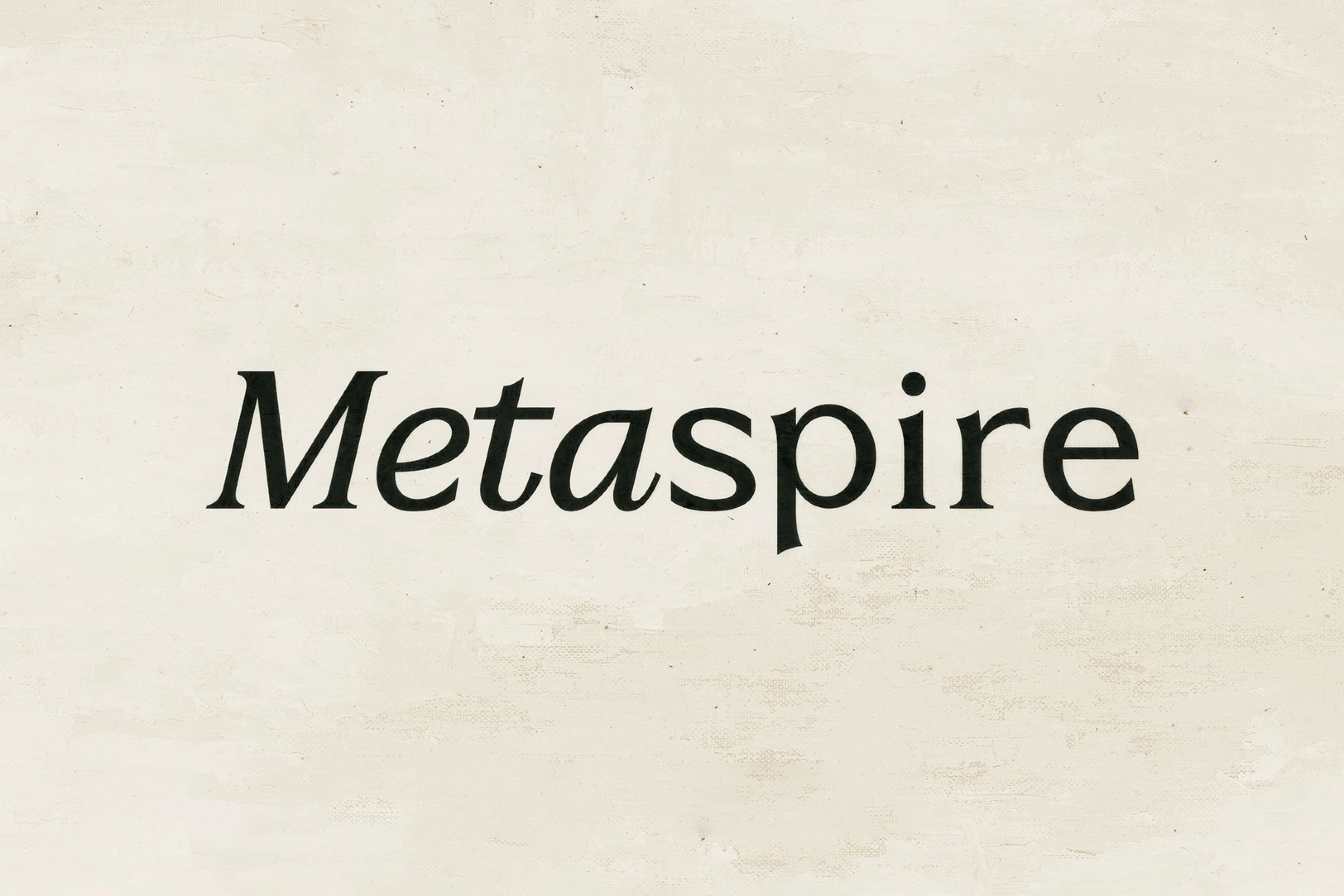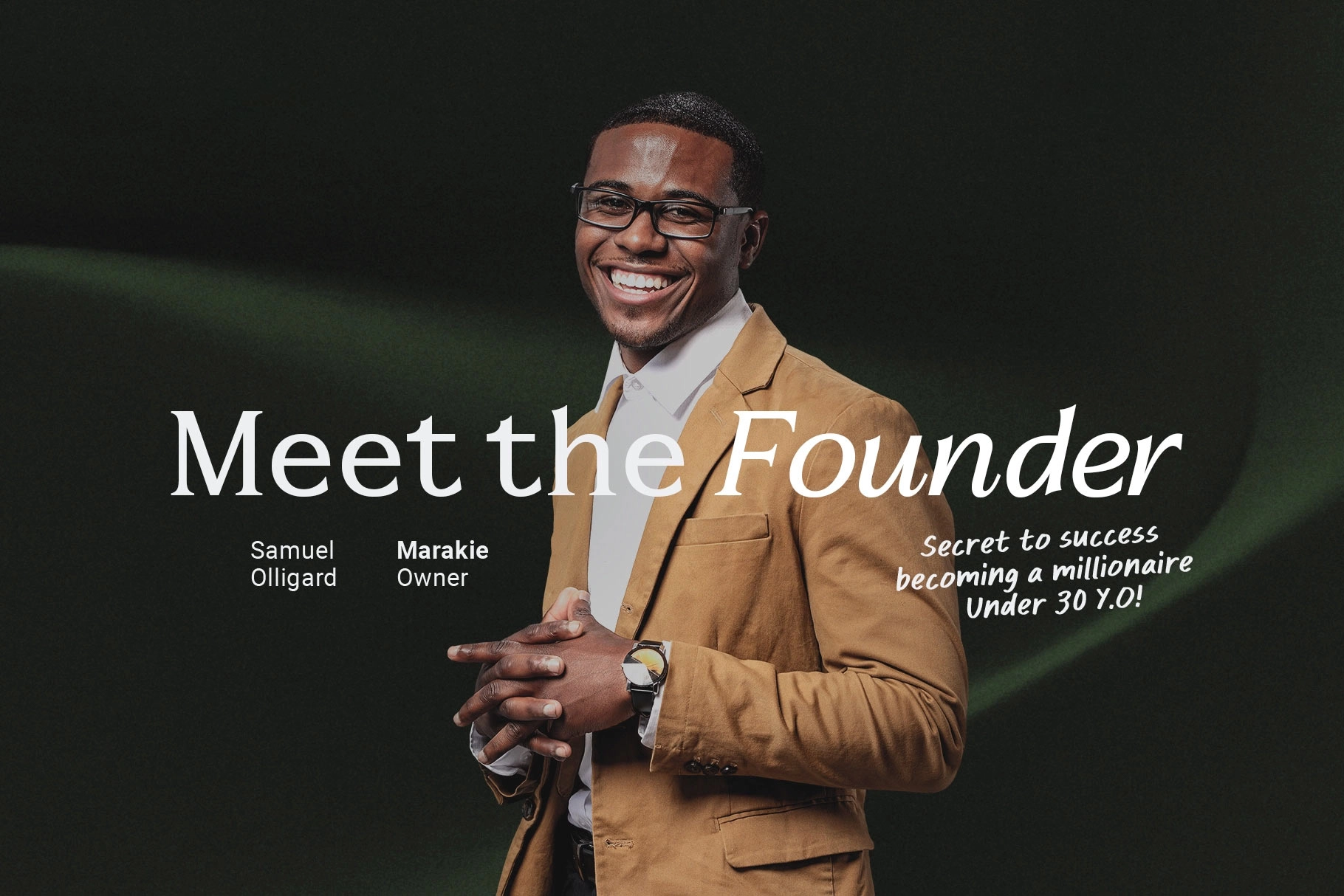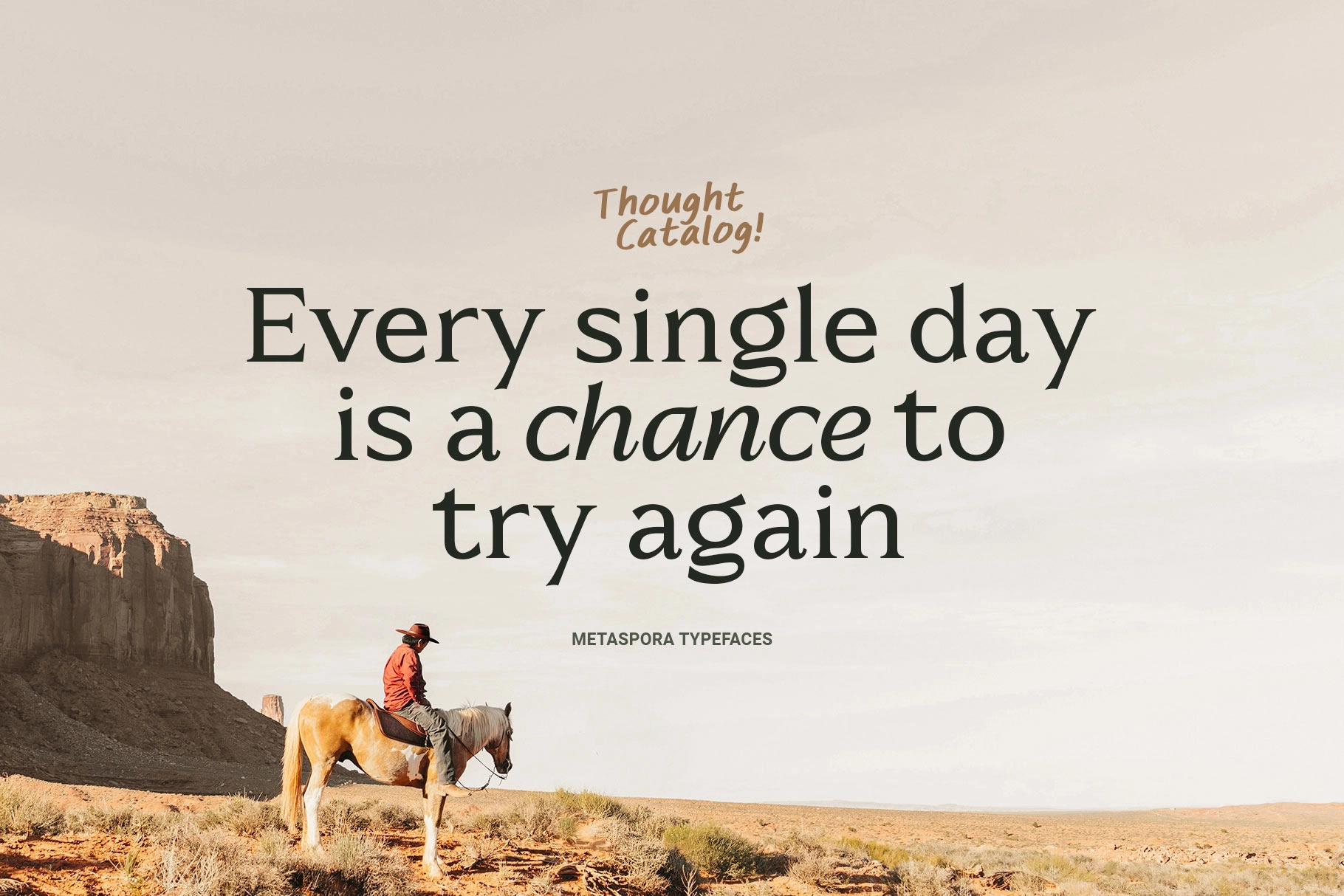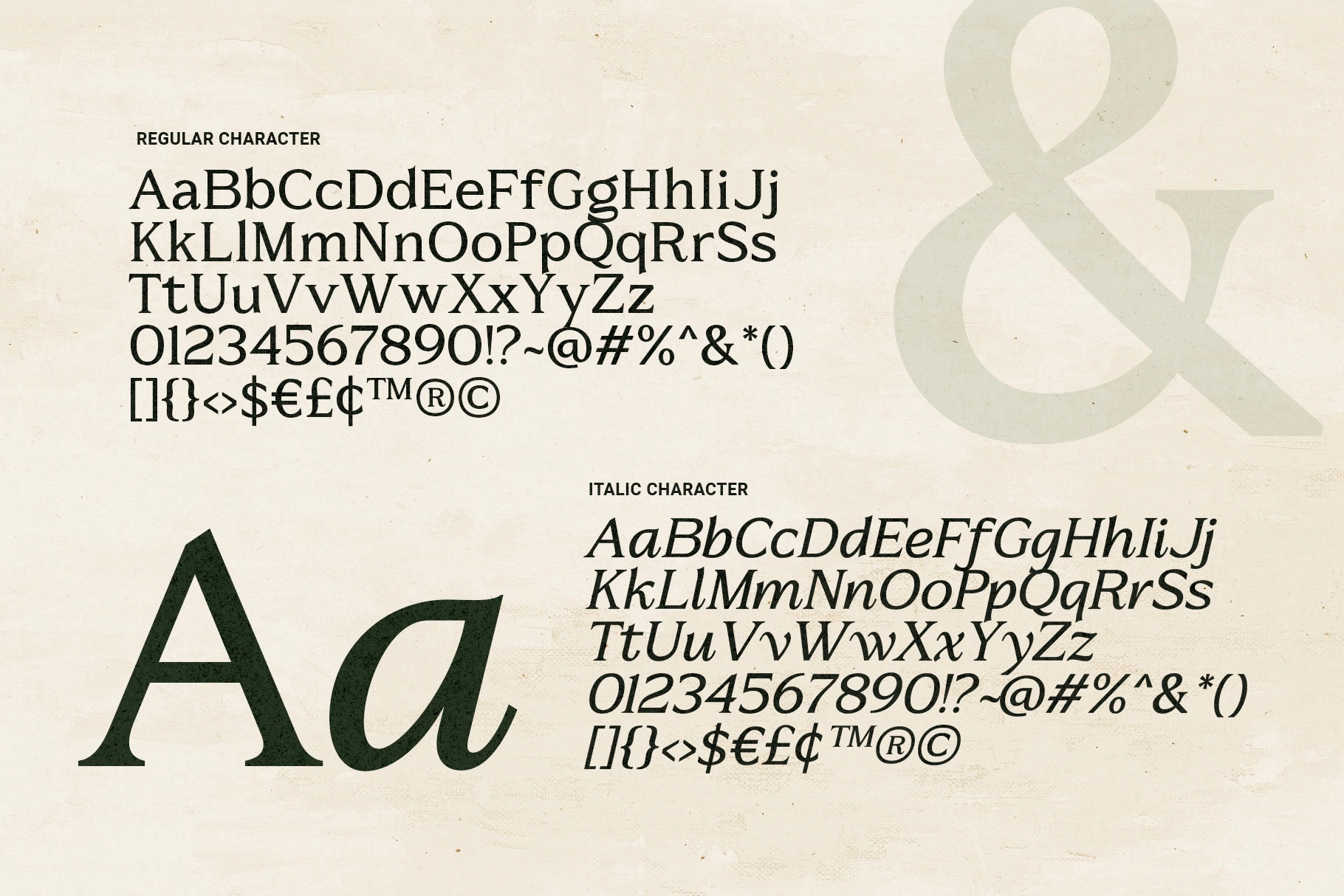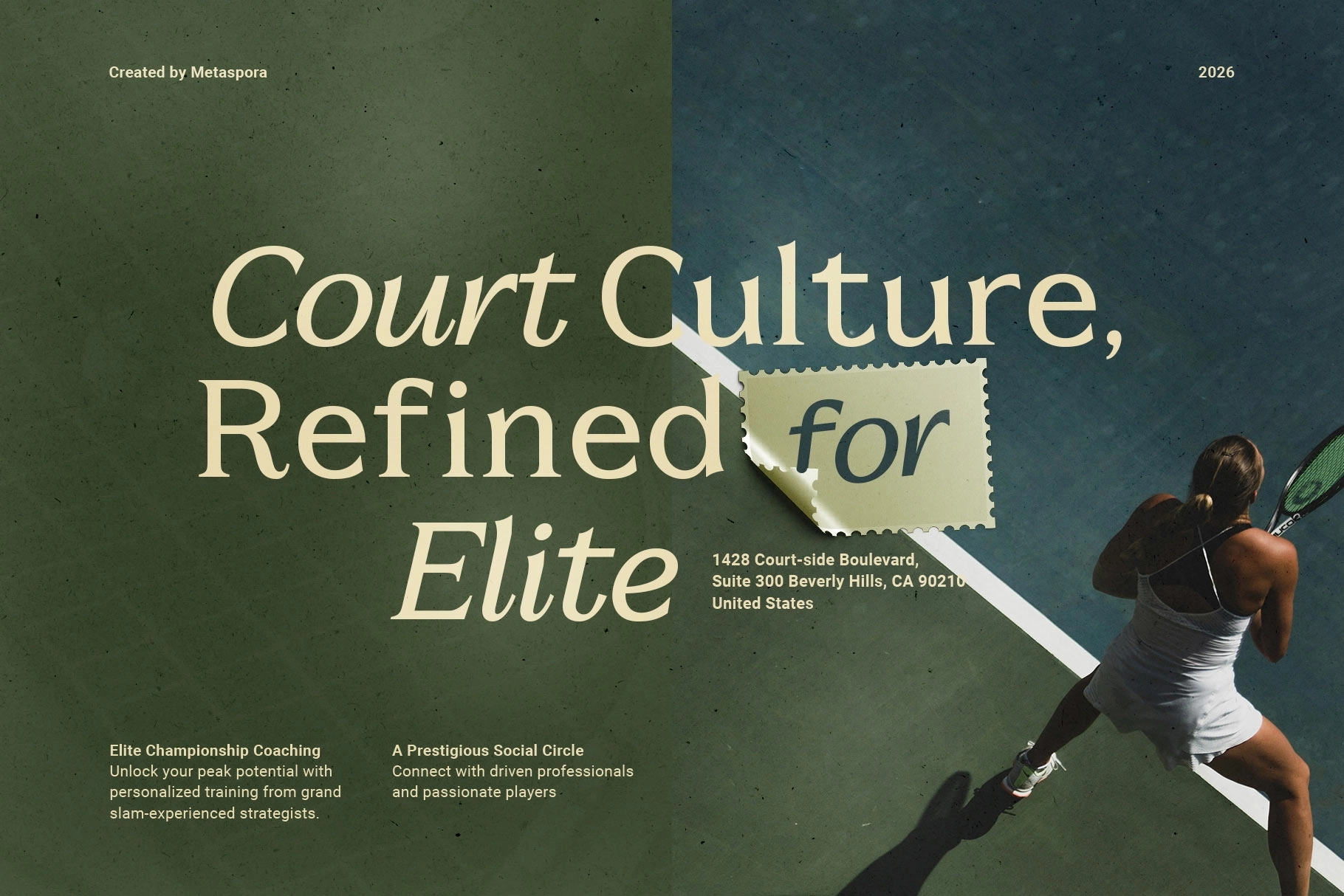
Metaspire - Elegant Display Serif Font
Metaspire draws on the polish of upscale editorial mastheads and boutique branding , cut as an elegant display serif font with a sturdy, slab-leaning serif structure and an even, confident rhythm. The italic companion swings into a fluid, semi-script slant that gives headlines a couture flourish without losing legibility.
The pairing works best where a headline needs both authority and warmth — a masthead set in Regular, a signature word or pull line dropped into Italic. Use it for magazine titling, luxury branding, boutique logotypes, editorial pull quotes, invitation lettering, and premium packaging.
- 2 styles: Regular, Italic;
- uppercase & lowercase;
- numerals, punctuation & symbols;
- multilingual support;
- 195 glyphs total